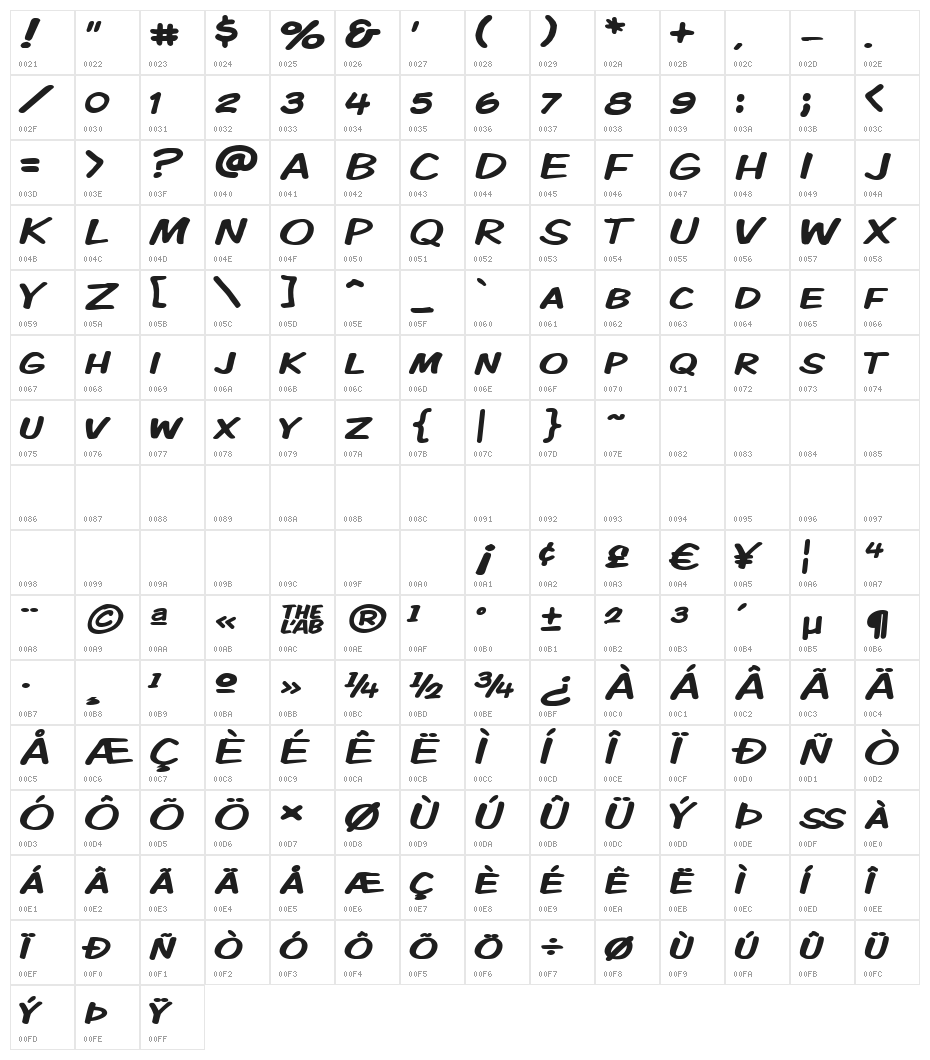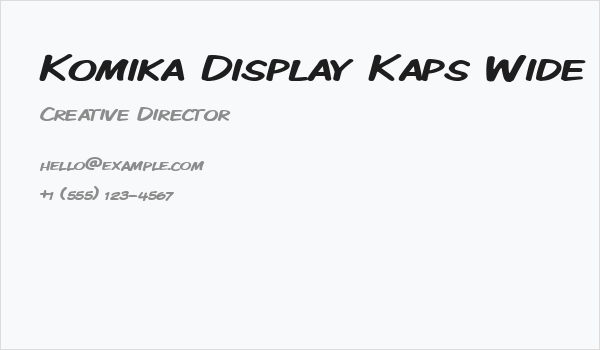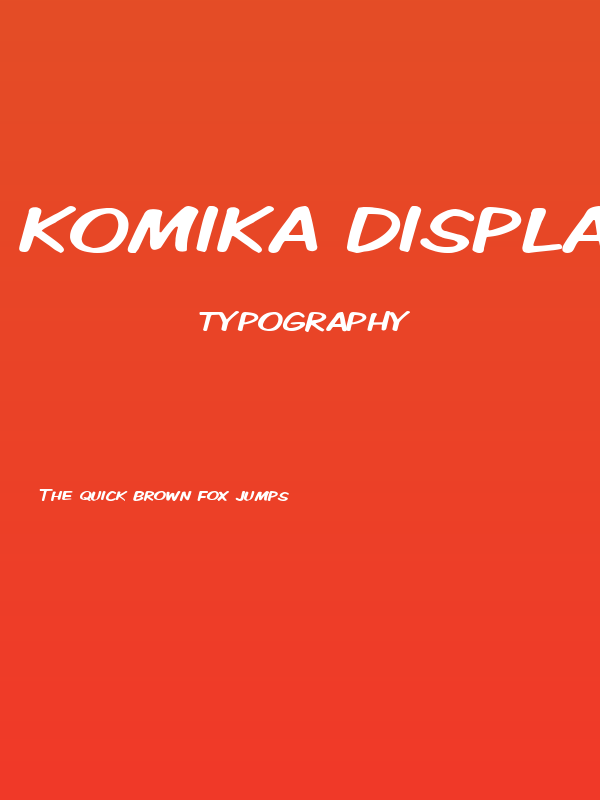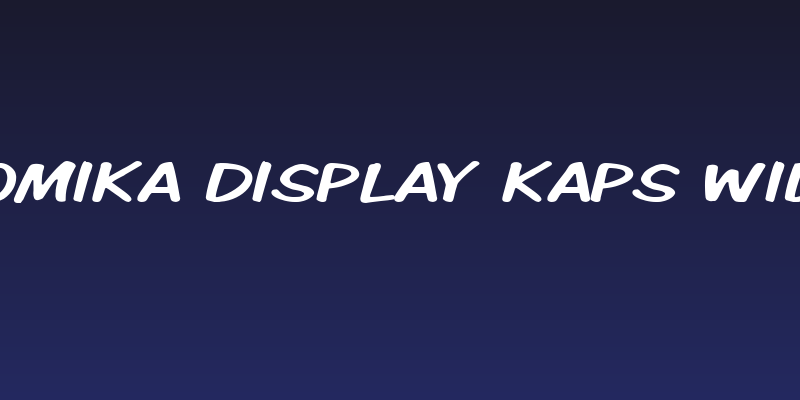
Komika Display Kaps Wide Font
Komika Display Kaps Wide Description
This font features a playful and bold style with a handwritten appearance, characterized by its wide and rounded letterforms. The strokes are thick and consistent, giving it a strong presence. The uppercase letters are slightly slanted, adding a dynamic feel, while the lowercase letters maintain a similar style, ensuring uniformity. The numbers and special characters follow the same design principles, making the font versatile for various uses. Its informal and friendly look makes it suitable for projects that require a casual and approachable tone.
| Proposed Projects | Ideal for comic books, children's books, playful branding, and informal posters. |